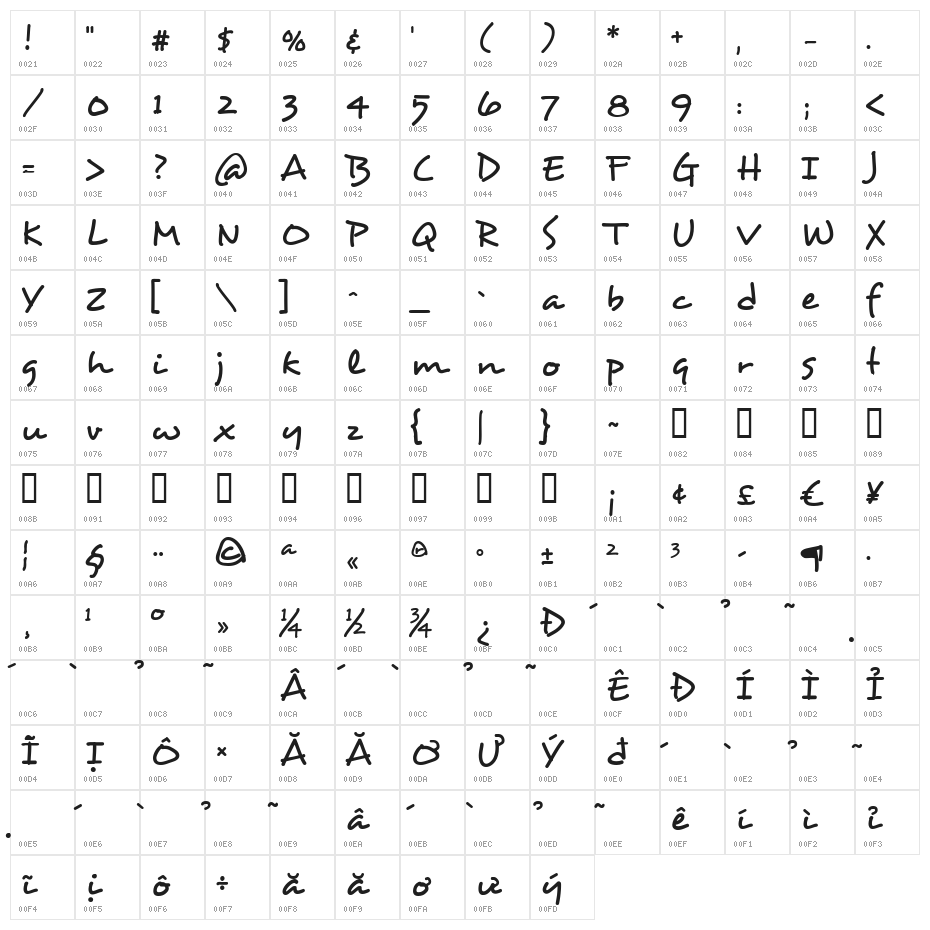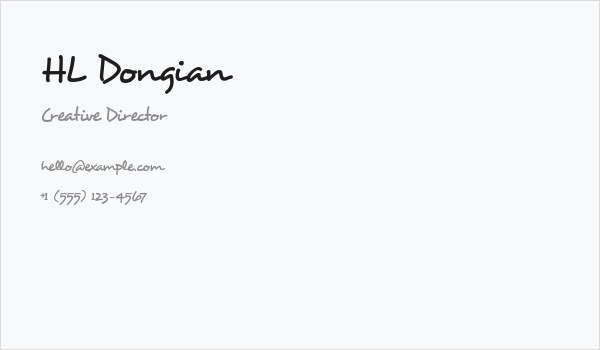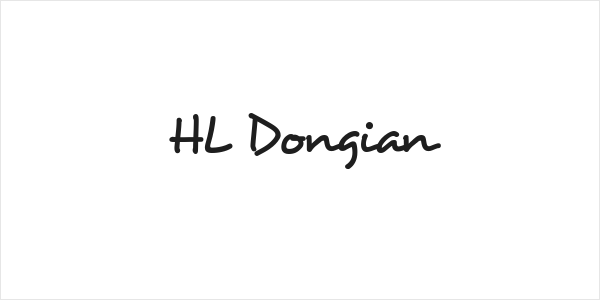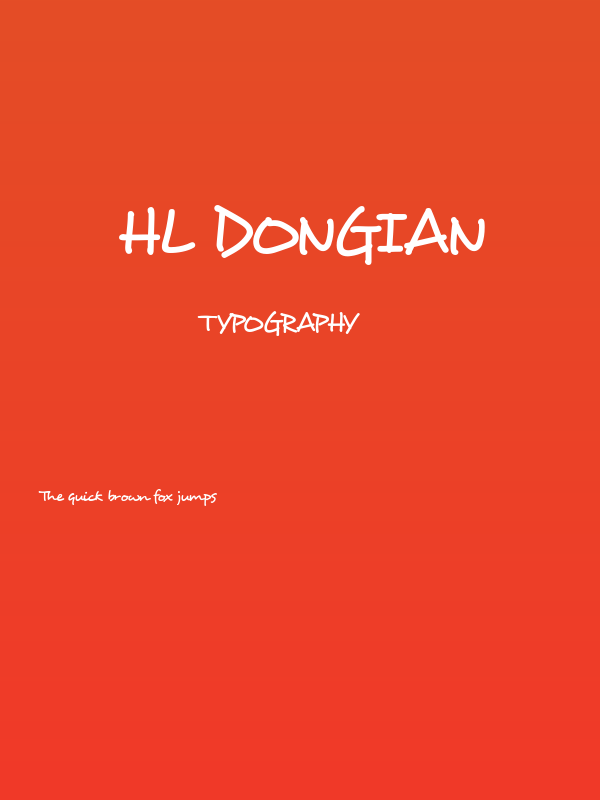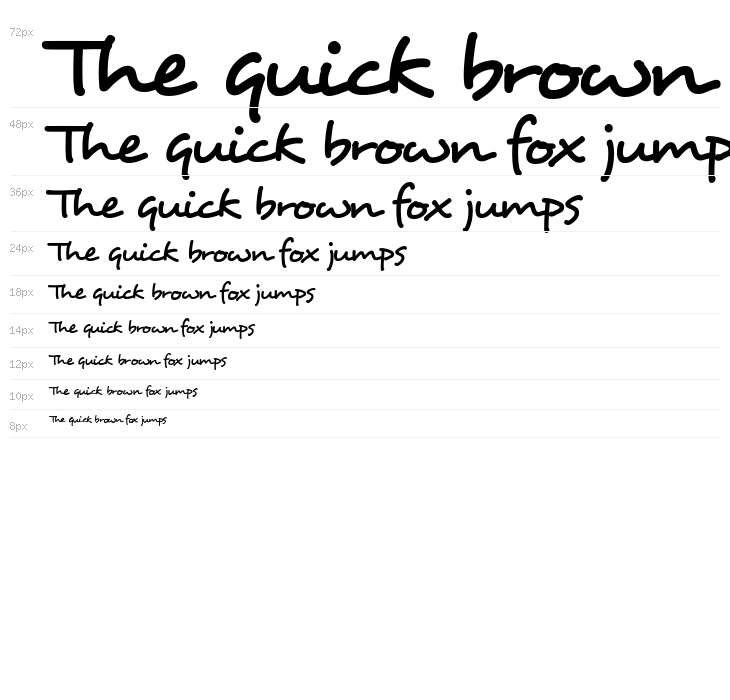
HL Dongian Font
HL Dongian Description
This font features a playful and casual handwritten style, characterized by its bold and slightly uneven strokes. The letters have a dynamic flow, with a natural and organic feel that mimics the look of handwriting. The uppercase letters are bold and prominent, while the lowercase letters maintain a consistent style with a slightly more relaxed appearance. Numbers and special characters are designed to match the overall aesthetic, providing a cohesive look across all elements. This font exudes a sense of creativity and informality, making it ideal for projects that require a personal touch.
| Proposed Projects | Ideal for greeting cards, invitations, personal branding, and creative projects that require a handwritten touch. |